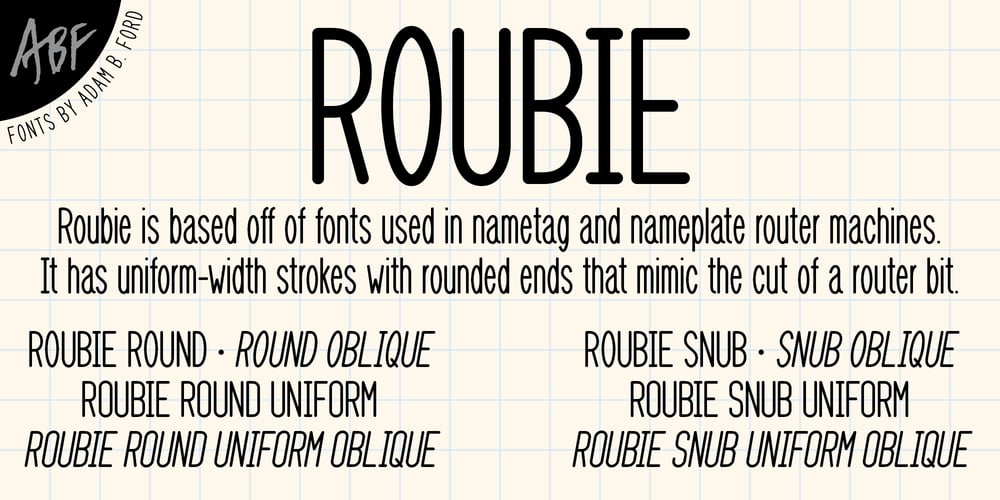
Roubie Font Family was designed by Adam B. Ford and published by Adam B. Ford. Roubie contains 8 styles and family package options. Roubie is based off of fonts used in nametag and nameplate router machines. It has uniform-width strokes. The Round version has rounded terminals that mimic the cut of a router bit. The Snub version had snubbed-off terminals. Both versions also come with oval-shaped bowls (standard) or Uniform flavor with racetrack-shaped bowls.